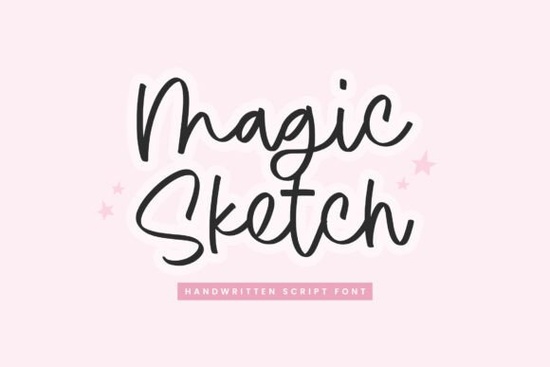
If you have been looking for a font that feels authentic and personal, this handwritten script style offers a great solution. It captures the essence of natural pen strokes while maintaining enough clarity for everyday use. Designers often choose Magic Sketch Font when they want to convey warmth without sacrificing professional quality.
This typeface brings a playful yet expressive touch to various creative projects. The slightly rough, sketch-like texture adds character that standard digital typefaces lack. Whether you are working on digital graphics or preparing files for print, this tool helps bridge the gap between typed text and actual handwriting. It balances readability with decorative flair effectively.
Why Choose This Specific Script Typeface?
In the crowded space of design assets, finding something distinct can be challenging. Many script fonts appear too stiff or overly polished, making them look artificial. This collection introduces a raw aesthetic that resonates with audiences seeking a human connection. It blends casual handwriting with artistic imperfections, giving it a genuine look.
When used correctly, it transforms ordinary layouts into something memorable. You can apply this style to logos, quotes, invitations, and creative branding efforts. For instance, small business owners often use it to soften their brand image, making their company feel approachable and friendly. The flexibility extends across both digital and print mediums without losing its intended atmosphere.
- Natural Flow: The strokes mimic how a person actually moves a pen across paper.
- Versatility: Works well for high-volume projects due to good spacing and kerning.
- Personality: Adds a distinct voice to social media graphics or packaging labels.
Linguistic support is another crucial factor for global projects. This font supports multilingual characters, meaning you do not need to switch typefaces just because your text includes accented letters or international symbols. This capability saves time and keeps the visual consistency intact throughout your document. Enhancing your designs with original fonts like this helps establish a cohesive identity for your work.